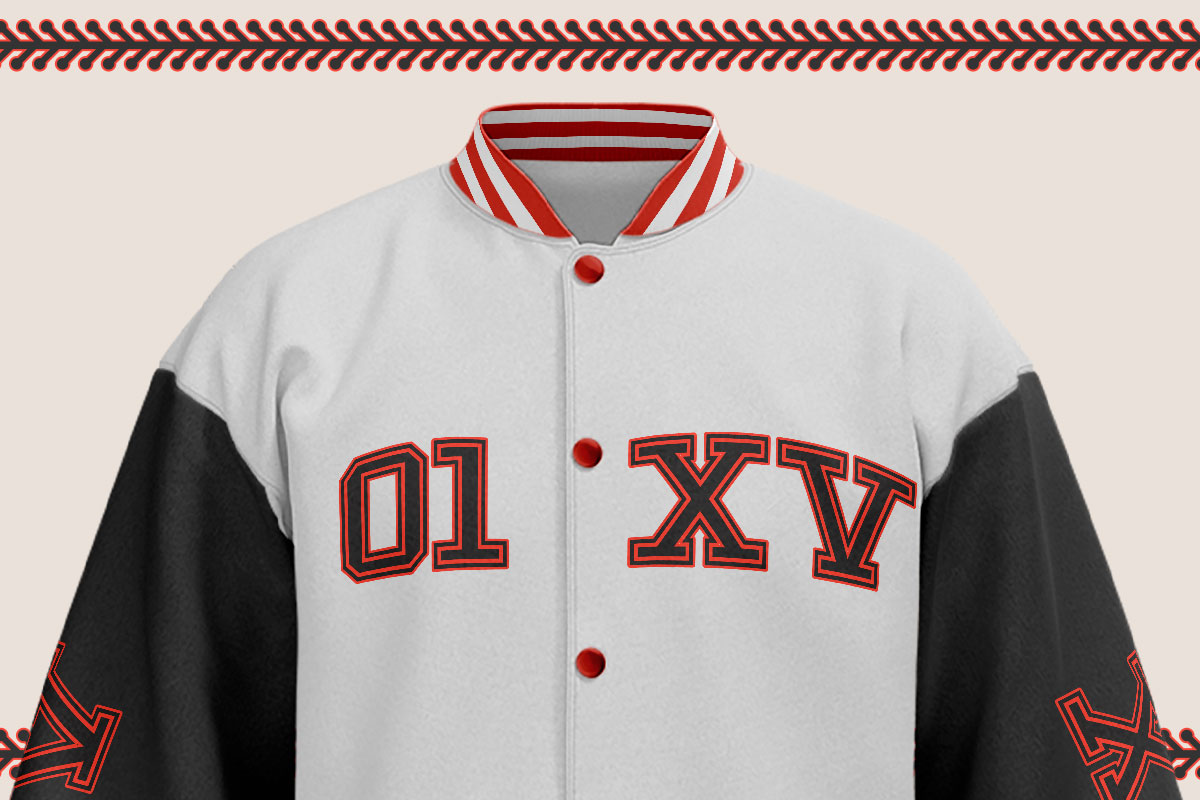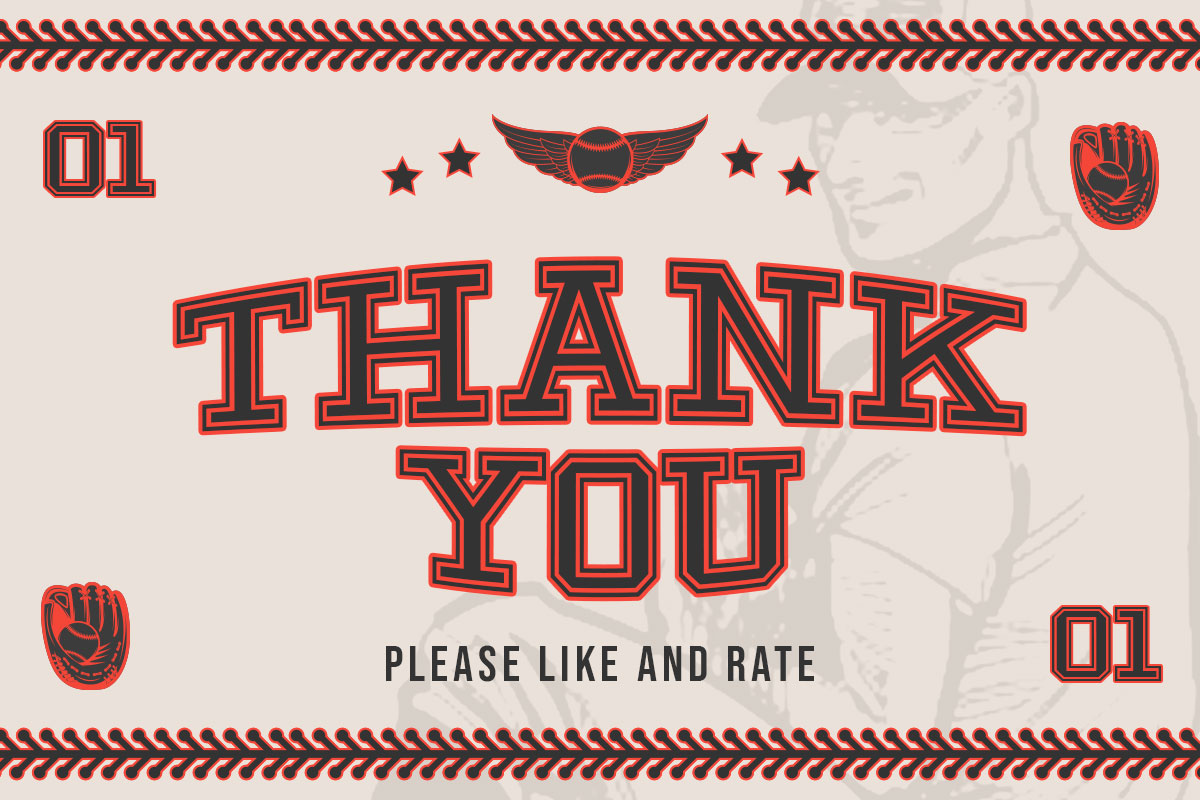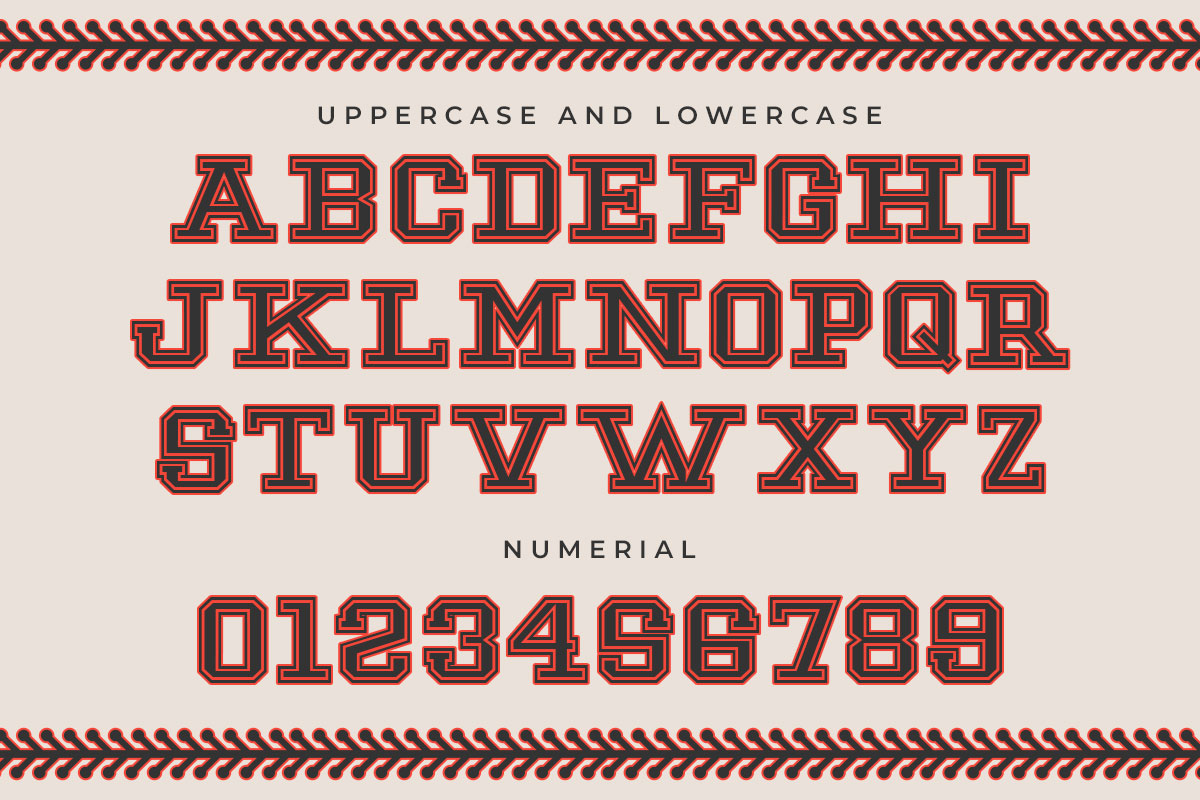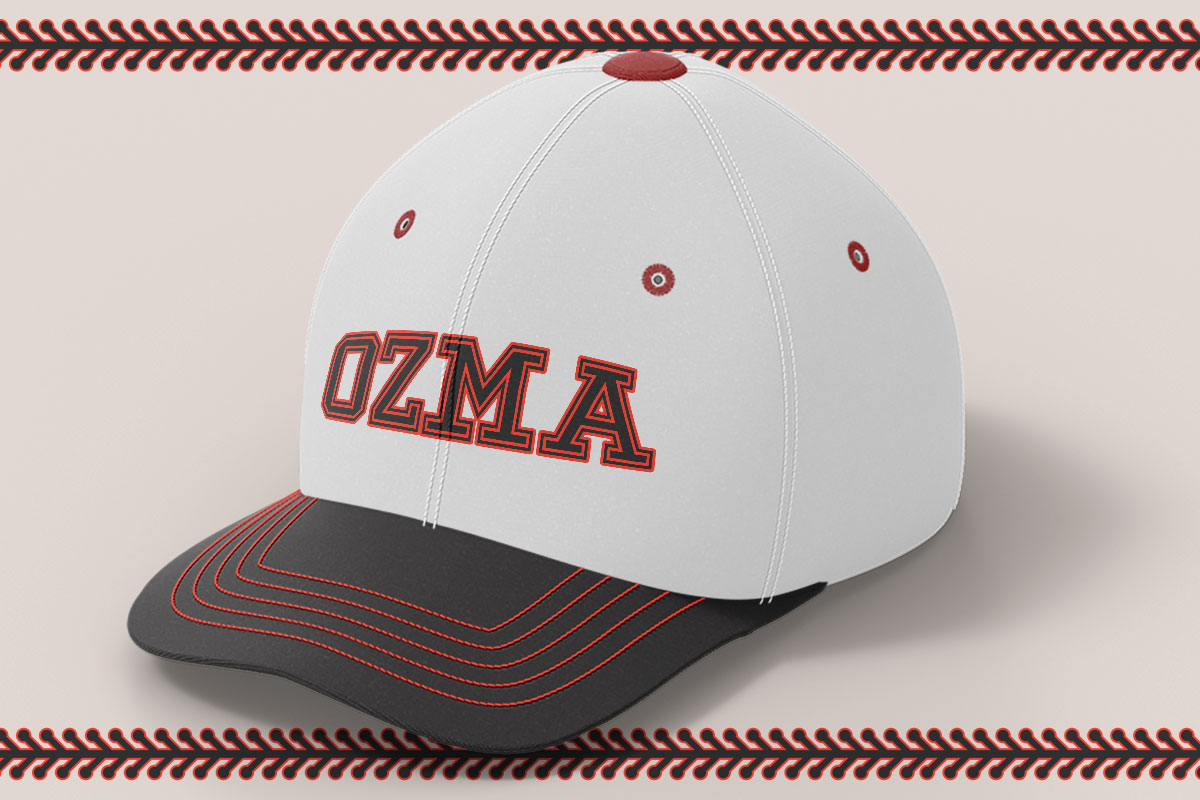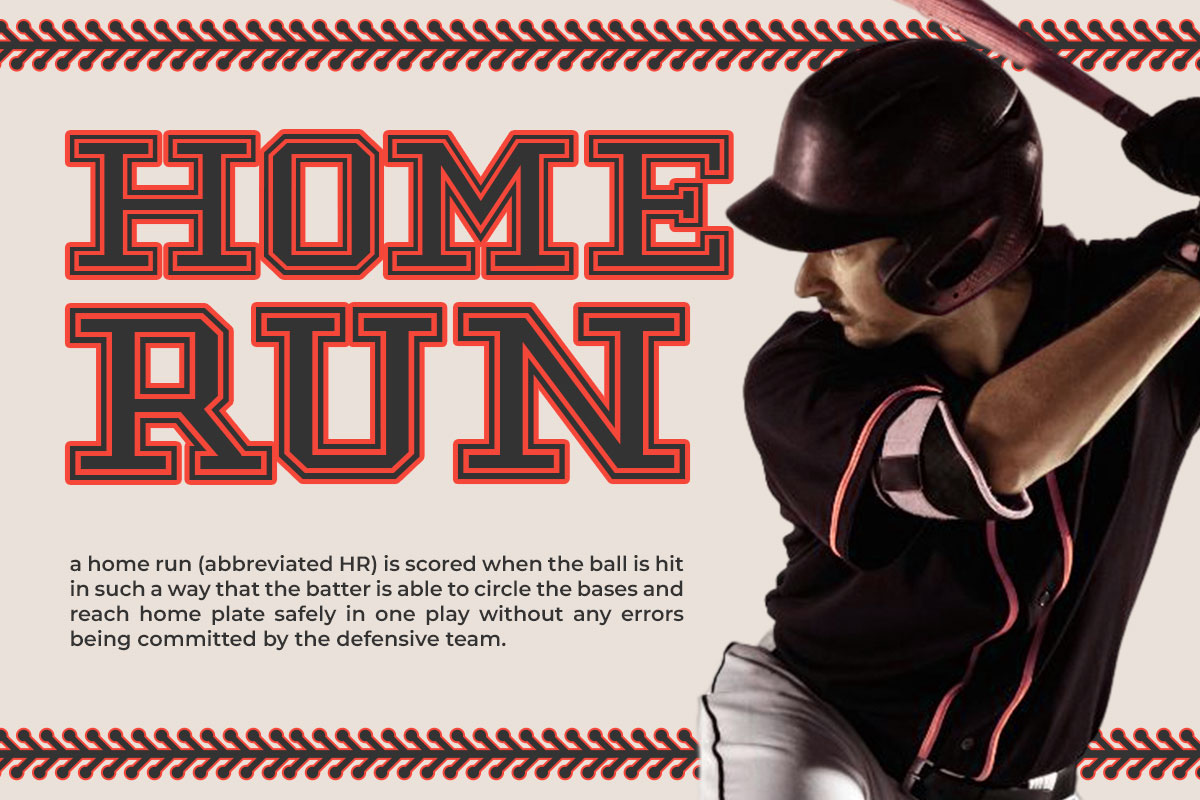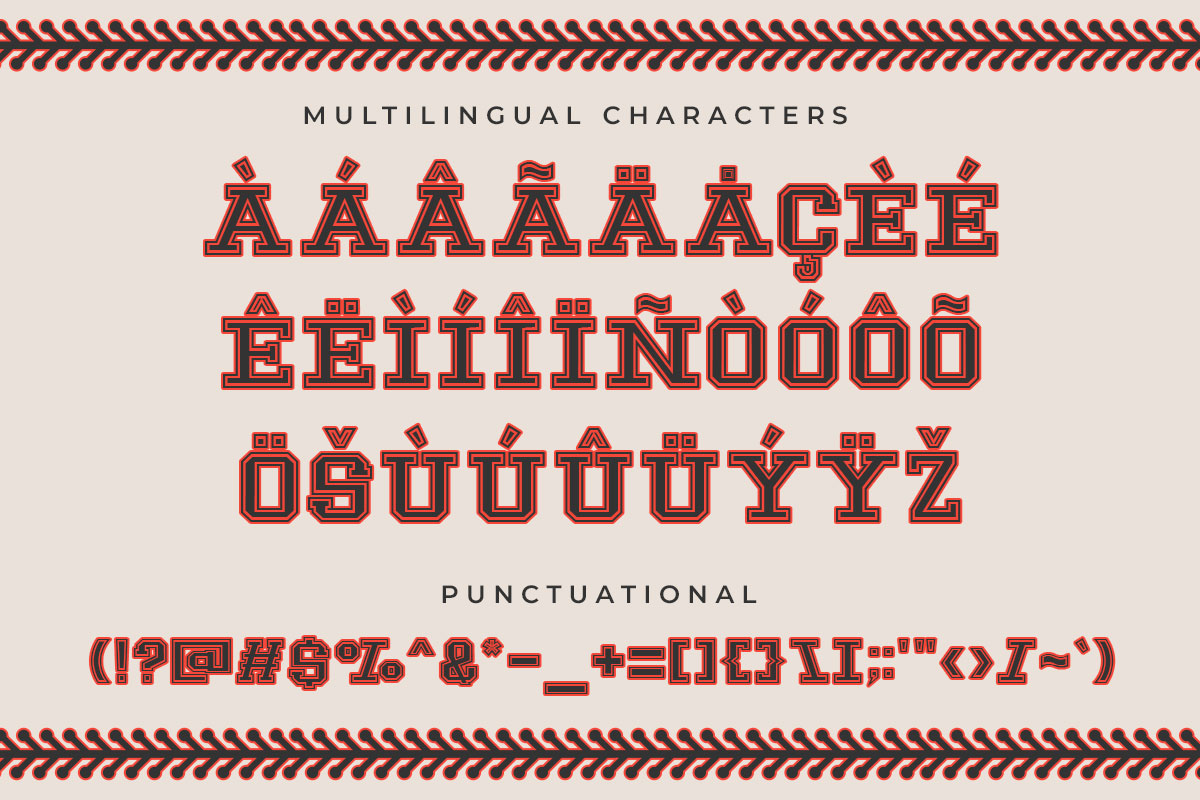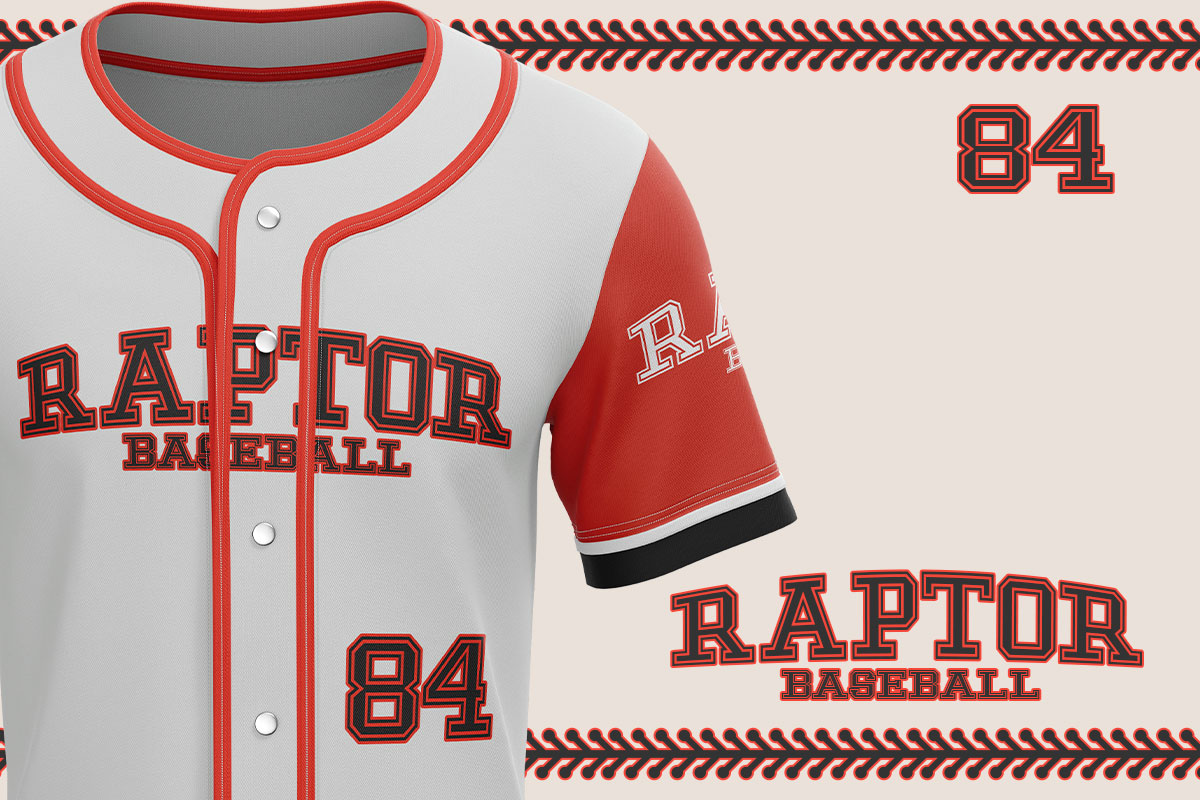
Pararel Modern Sport Font Font As the name suggests, Pararel Modern Sport Font is a typeface that shows a modern and sporty impression. Easy to read and distinguishable, this font can serve many uses depending on the user. This font is legible and reaches out to use as large and small text. Pararel Modern Sport Font is a modern and stylish font. This font was created to add a variety of sports fonts for many uses. Pararel Modern Sport Font can be used for production digitally and in promotions on the web and social media, as well as in printed forms such as magazines and posters. One of the products that can be combined with this font is sports products such as t-shirts, bags, hats, and logos. Pararel Modern Sport Font can use on the sports magazine cover. This font can use as a brand on product packaging and can be applied as a match event font in the posters, costumes, tickets, and merchandise. In modern business needs, Pararel Modern Sport Font is also suitable for business signage that denotes a place, such as a stadium or other sports venue. Headton Modern Sport Font is one of the best fonts to use for fonts. Our Serif fonts collection is compatible for use as; Figma Fonts, Canva Fonts, Freepik Fonts, and Adobe Fonts. They also work as Windows Fonts and Apple Fonts. For your social media needs, you can use and install fonts in our collection of serif fonts to use as Instagram Fonts, Facebook Fonts, and Twitter Fonts.